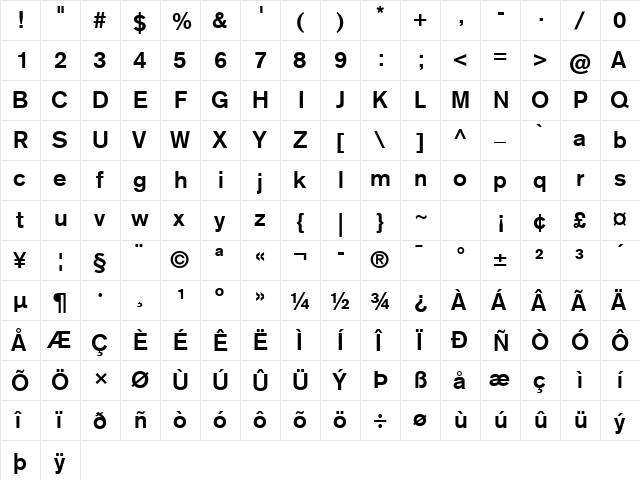
Basic Commercial LT Com Bold
| Foundry | Linotype GmbH |
| Designer | Linotype Design Studio |
Design Context for Basic Commercial LT Com Typeface
Basic Commercial LT Com is a composed and adaptable typeface that performs quietly and consistently across a wide range of design contexts. The heavy weight commands attention and anchors typographic hierarchies.